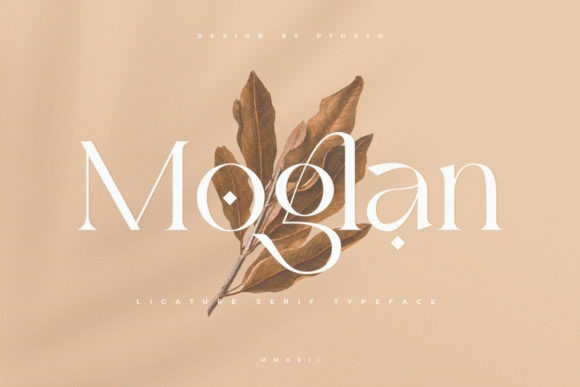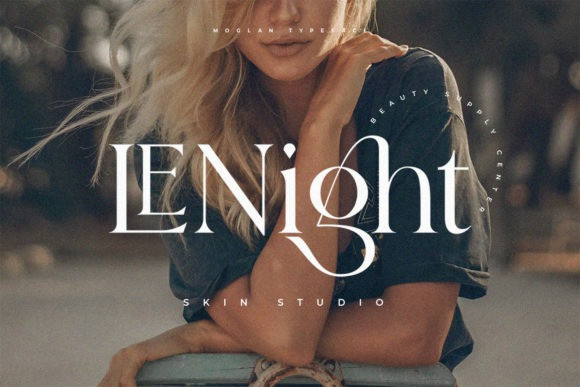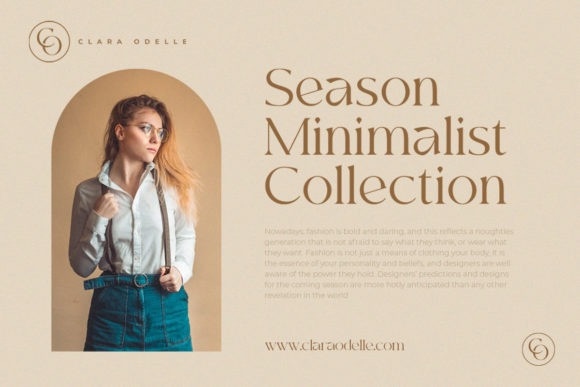
Moglan Font
Moglan is a slim and stylish serif font. It is perfect for product packaging, branding project, magazine covers, social media, wedding, or just used to express words above the background. This font is PUA encoded which means you can access all of the glyphs and swashes with ease.